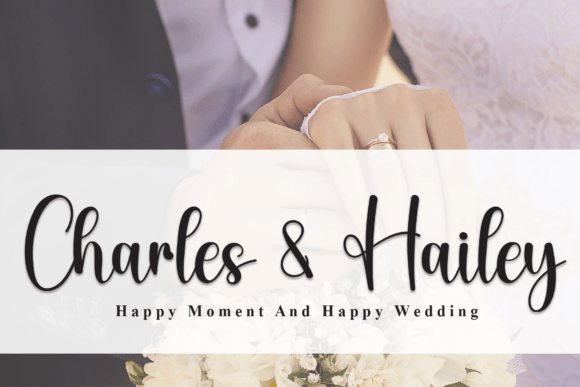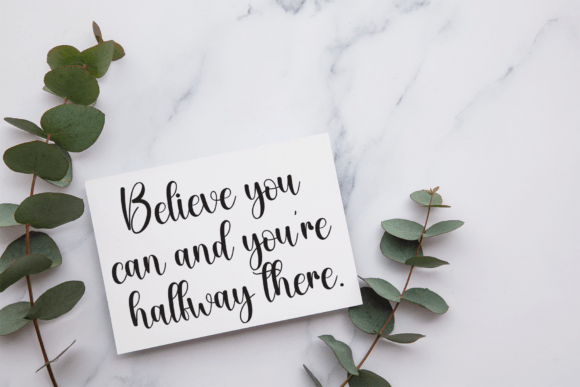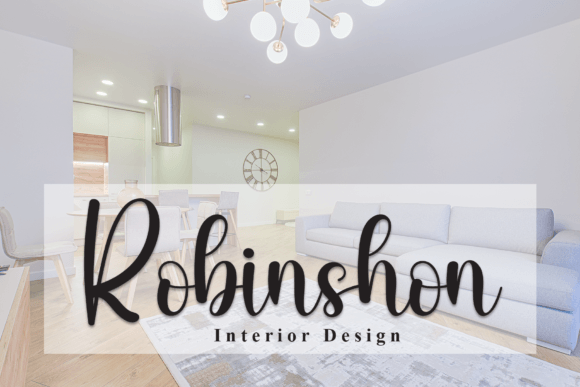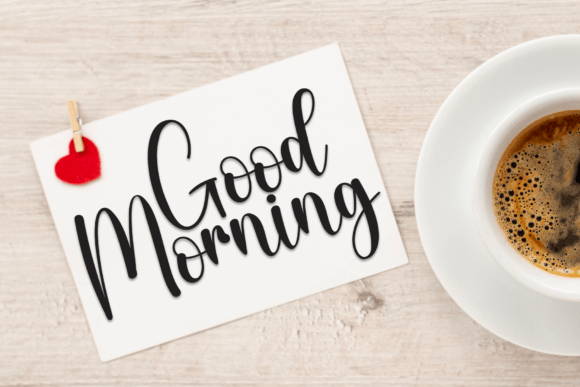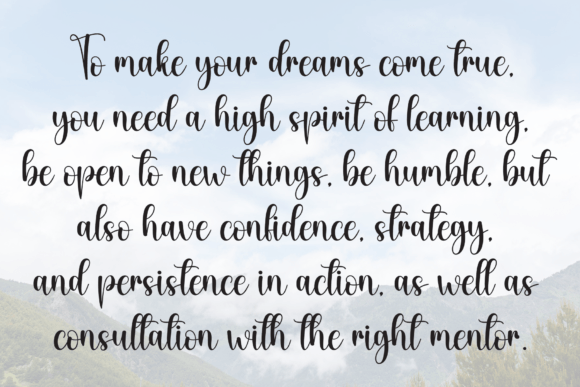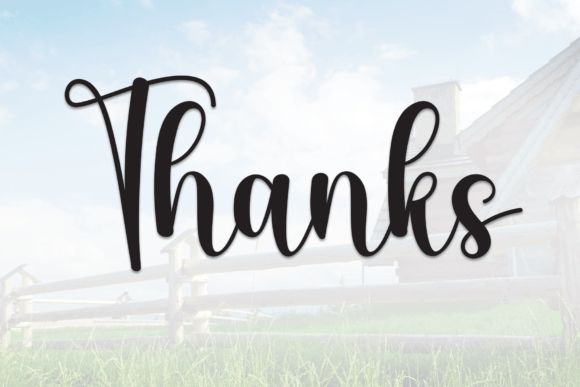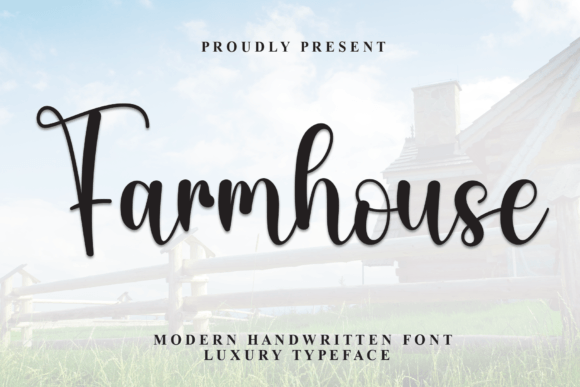
Introducing Farmhouse Font: The Sweet and Friendly Handwritten Font for Your Design Needs
Are you a designer or crafter looking for a unique and versatile font to elevate your projects? Look no further than Farmhouse Font, a sweet and friendly handwritten font that’s perfect for a wide range of designs. With its natural and distinctive style, Farmhouse Font is sure to capture the hearts of your audience and leave a lasting impression.
The Charm of Farmhouse Font
Farmhouse Font is a beautifully crafted handwritten font that’s designed to evoke a sense of warmth and friendliness. Its unique style is reminiscent of traditional farmhouse signs, with a touch of rustic charm and whimsy. The font’s natural and effortless look makes it incredibly fitting for a variety of designs, from rustic and country-themed projects to more modern and trendy applications.
One of the standout features of Farmhouse Font is its versatility. Whether you’re designing a logo, creating a social media graphic, or crafting a handmade product, this font is sure to adapt to your needs. The only limit is your imagination! With Farmhouse Font, you can add a personal touch to your designs and make them truly special.
Farmhouse Font is a dream come true for designers and crafters who are looking for a unique and versatile font to enhance their projects. Whether you’re a professional designer or a hobbyist crafter, this font is sure to inspire your creativity and help you create stunning designs.
For designers, Farmhouse Font offers a wide range of possibilities. You can use it to create beautiful branding materials, such as logos, business cards, and letterheads. The font’s friendly and approachable style makes it perfect for companies that want to convey a sense of warmth and approachability.
For crafters, Farmhouse Font is a great choice for adding a personal touch to handmade products. Whether you’re creating custom signs, jewelry, or home decor items, this font is sure to add a touch of rustic charm and whimsy to your designs.
So, what makes Farmhouse Font so special? Here are just a few of its key features:
- Unique and distinctive style: Farmhouse Font has a one-of-a-kind style that’s sure to stand out from the crowd.
- Natural and effortless look: The font’s natural and effortless look makes it perfect for a wide range of designs.
- Versatile: Farmhouse Font can be used for a variety of projects, from rustic and country-themed designs to more modern and trendy applications.
- Easy to read: Despite its handwritten style, Farmhouse Font is easy to read and understand, making it perfect for body text and headlines.
In conclusion, Farmhouse Font is a sweet and friendly handwritten font that’s perfect for designers and crafters who are looking for a unique and versatile font to elevate their projects. With its natural and distinctive style, Farmhouse Font is sure to capture the hearts of your audience and leave a lasting impression. So why wait? Give Farmhouse Font a try today and see the difference it can make in your designs!